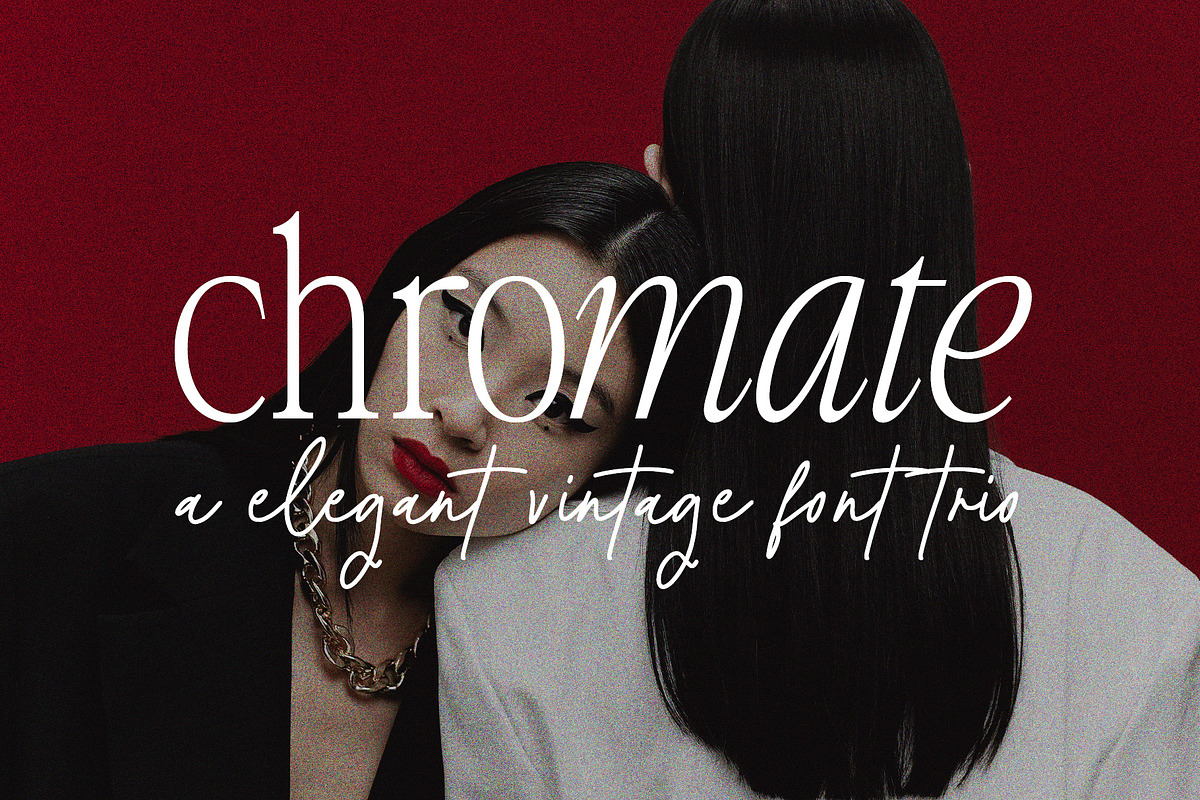
Step into the neon-lit era of innovation and bold self-expression with Chromate — a dynamic, retro-inspired font family that captures the electric pulse of the 1980s and 1990s. Designed for creators who demand visual impact, personality, and timeless cool, Chromate delivers an instant retro upgrade to any project — from music album covers to tech branding, from fashion labels to digital art.
Unleash the Power of 3 Stylish Fonts in One Unified Family
Why choose between styles when you can have them all? Chromate includes three high-impact fonts that work together seamlessly to maintain style consistency across your entire project:
- Chromate Regular – The cornerstone of the family, delivering sharp, dense letterforms with a punchy digital-era aesthetic.
- Chromate Italic – Adds movement and grace, perfect for dynamic headlines, quotes, or narrative text with flair.
- Chromate Script – Brings a hand-crafted, expressive touch — ideal for signatures, logos, and artistic headlines.
With all three styles available, you no longer need to mix fonts or guess which one matches. Chromate gives you a unified vision from start to finish — every letter flows like it belongs.
Rich Typography with Built-In Retro Features
Chromate is not just a font — it’s a complete typographic toolkit. It features:
- Professional Ligatures – Automatically combine letter pairs for polished, readable, and authentic retro-style text (e.g., “fi”, “fl”, “ct”).
- PUA Encoded Characters – Access all special symbols, icons, alternate glyphs, and stylistic shapes without needing specialty software. Just type, and they appear.
- Extended Character Set – Includes full support for uppercase and lowercase letters, numbers, punctuation, and symbols in a clean, cohesive layout.
- Retro-Style Glyph Variants – Alternate characters that mimic the quirky charm of vintage fonts from arcade games, early digital software, and synthwave aesthetics.
This is typography built for the aesthetic of the digital frontier — where style, function, and nostalgia collide.
Designed for Global Creativity, Backed by Multilingual Power
Chromate speaks beyond borders. Fully equipped to support all European languages, including:
- English, French, German, Italian, Spanish, Portuguese
- Polish, Czech, Slovak, Hungarian, Romanian
- Scandinavian languages (Swedish, Norwegian, Danish)
- Slavic and Baltic scripts (Croatian, Lithuanian, Latvian, Estonian)
- Additional Unicode coverage for Greek, Cyrillic, and special diacritics
Whether you’re designing for a pan-European campaign, publishing a multilingual magazine, or creating a retro-themed app, Chromate handles it all with precision and flair.
Perfect for Every Retro-Driven Project
Chromate isn’t for just one niche — it’s for every project that needs to feel bold, nostalgic, and undeniably cool:
- Branding & Logo Design – Craft identity that stands out in a crowded market.
- Posters & Event Art – Make concert flyers, film promos, and art exhibitions feel like a scene from a synthwave movie.
- App UI & Game Design – Add retro authenticity to user interfaces and in-game text.
- Packaging & Merchandise – Turn t-shirts, mugs, posters, and vinyl sleeves into nostalgic collectibles.
- Editorial & Magazine Layouts – Highlight sections with vintage-inspired headlines that captivate readers.
- Music & Video Projects – Match the tone of vinyl releases, music videos, or YouTube intros with instant retro energy.
Don’t just follow trends — set them. Don’t just design — evolve. With Chromate, every design becomes a journey through time, where the spirit of the 80s and 90s lives on in bold, confident letters.